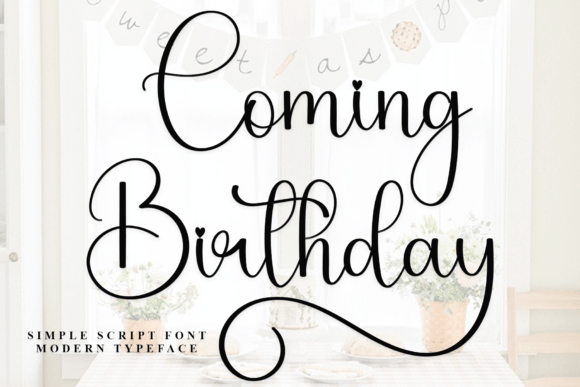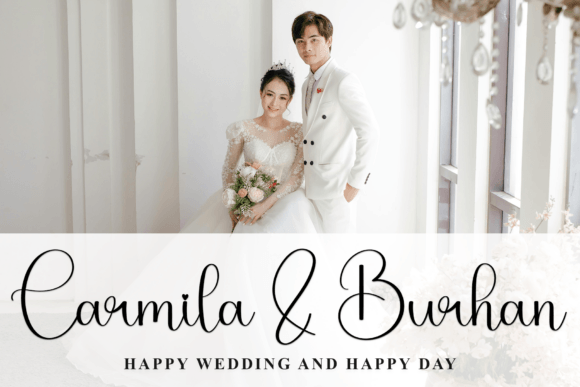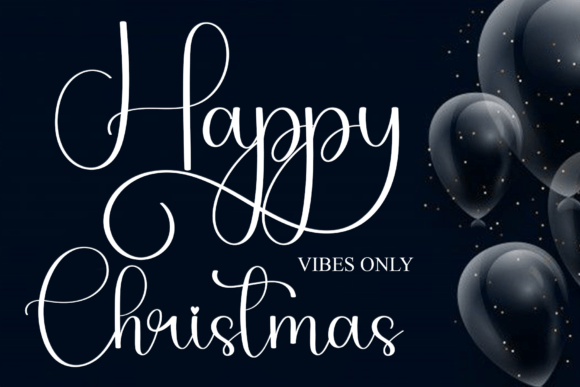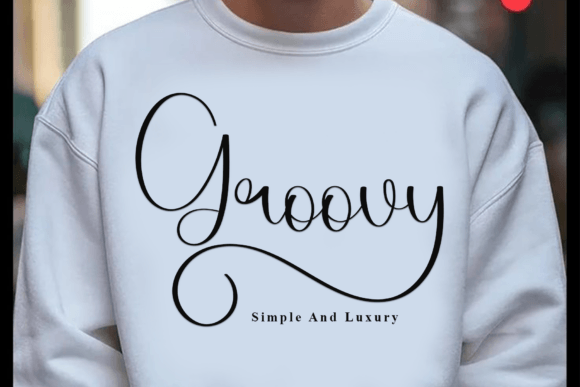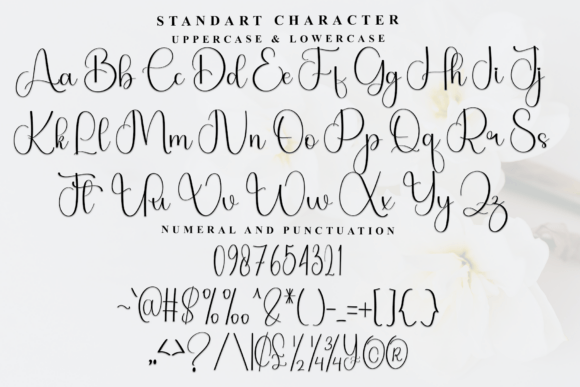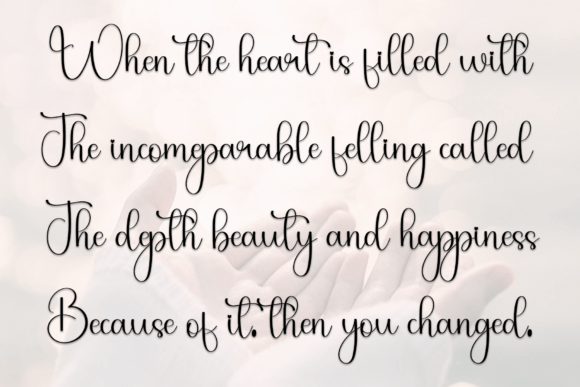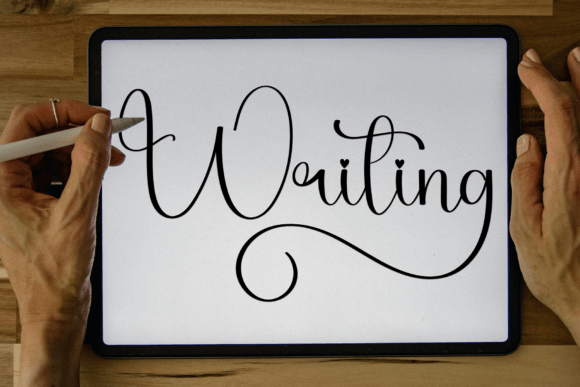
Designing with Joy: Introducing Coming Birthday Font
As a designer, there’s nothing quite like the thrill of creating something that sparks joy and excitement. Whether it’s a birthday invitation, a social media post, or a personal project, the right font can make all the difference. That’s why we’re excited to introduce you to the Coming Birthday Font, a delightful and playful typeface that’s sure to put a smile on your audience’s face.
This charming font is designed to evoke warmth and friendliness, with round, playful strokes that create a relaxed and approachable feel. Its hand-drawn aesthetic adds a unique touch to any design, making it perfect for personal projects, invitations, and social media graphics. With standard PUA Encoded glyphs, you can use the Coming Birthday Font in a variety of applications, from Adobe Photoshop to Canva.
Coming Birthday Font Key Features
- Unique Characteristics: The font features a playful, cursive design with bold and colorful elements, making it perfect for birthday celebrations.
Coming Birthday Font Review
At first glance, Coming Birthday Font has an energetic vibe that grabs your attention. ✨ I appreciate the playful, cursive design elements that evoke a sense of excitement and celebration.
The font is well-suited for digital use, with clear and legible letterforms that render well on various screen sizes. ✨ It’s a great choice for social media posts, blog titles, and other online content where you want to add a pop of personality.
- ⚠️ Limited font styles: The font is primarily designed for use in titles and headings, which can make it feel restrictive for body text.
- ⚠️ Lack of customization options: The font is a one-size-fits-all solution, which may not be ideal for designers who need more control over font sizes, line heights, and other styling elements.
Overall, Coming Birthday Font is a fun and engaging choice for digital projects. While it may not be suitable for every design need, it’s a great option for adding a celebratory touch to your work. With a bit more flexibility and customization options, this font could be a real showstopper.
Coming Birthday Font: A Practical Application Guide
Use the Coming Birthday Font to create eye-catching birthday invitations, party decorations, and social media graphics.
Experiment with different font sizes, colors, and styles to create a unique and festive look.
Birthday invitations and party decorations
Social media graphics and posts
Personalized birthday cards and gifts